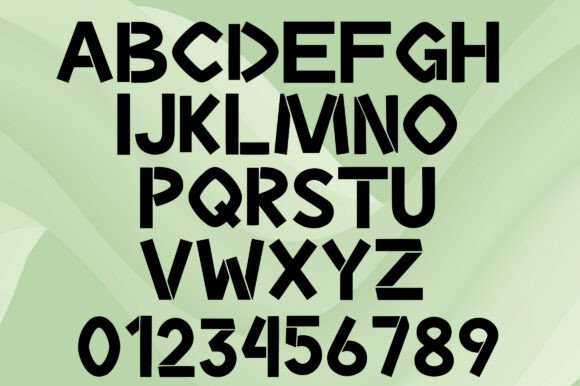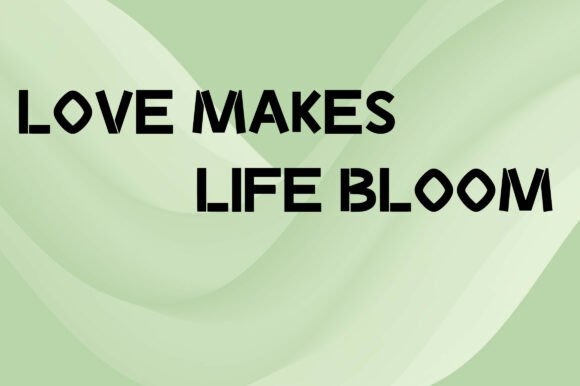
The Designer’s Delight: Getting to Know Aria Font
I still remember the frustration of working on a logo design project, only to hit a roadblock when searching for the perfect font. My client wanted something bold, modern, and eye-catching, but everything I found seemed either too bland or too over-the-top. That’s when I stumbled upon Aria Font, and it was love at first sight! 💡
With its strong uppercase letterforms, clean structure, and distinctive cut details, Aria Font exudes a confident and stylish vibe that’s hard to ignore. In this article, I’ll share my experience with Aria Font, its features, and how to make the most of it in your designs.
An Honest Review of Aria Font
What I Love About Aria Font ✨
- ✅ Modern geometric style: Aria Font boasts a sleek, contemporary look that’s perfect for brands and projects that want to appear fresh and modern.
- ✅ Playful artistic twist: The font’s distinctive cut details add a touch of whimsy and creativity, making it stand out from more traditional fonts.
- ✅ Clean structure: Aria Font’s clean lines and simple shapes make it highly legible, even at larger sizes.
- ✅ Uppercase and numbers only: The font’s focus on uppercase letters and numbers means it’s perfect for headlines, titles, and short phrases.
- ⚠️ Limited character set: As Aria Font only includes uppercase letters and numbers, it may not be the best choice for body text or longer paragraphs.
- ⚠️ No italic or oblique versions: If you need a font with more variations, Aria Font might not be the best fit.
The Backstory of Aria Font
Aria Font was designed with the goal of creating a bold, modern font that still had a touch of playfulness. The designer wanted to create a font that would stand out in a crowded design landscape, while still being easy to read and understand. With its strong uppercase letterforms and distinctive cut details, Aria Font is the perfect result of this design challenge.
| Font Name | Aria Font |
| Author | MOMAT THIRTYONE |
| What is Aria Font best used for? | Aria Font is perfect for logos, branding, posters, packaging, headlines, social media graphics, and other creative projects that need a confident and eye-catching typeface. |
| Is Aria Font suitable for body text? | No, Aria Font is best used for headlines, titles, and short phrases. Its limited character set and lack of lowercase letters make it less suitable for body text. |
| Is Aria Font available in multiple weights? | No, Aria Font is currently only available in one weight. However, its bold and confident style makes it perfect for a wide range of design applications. |